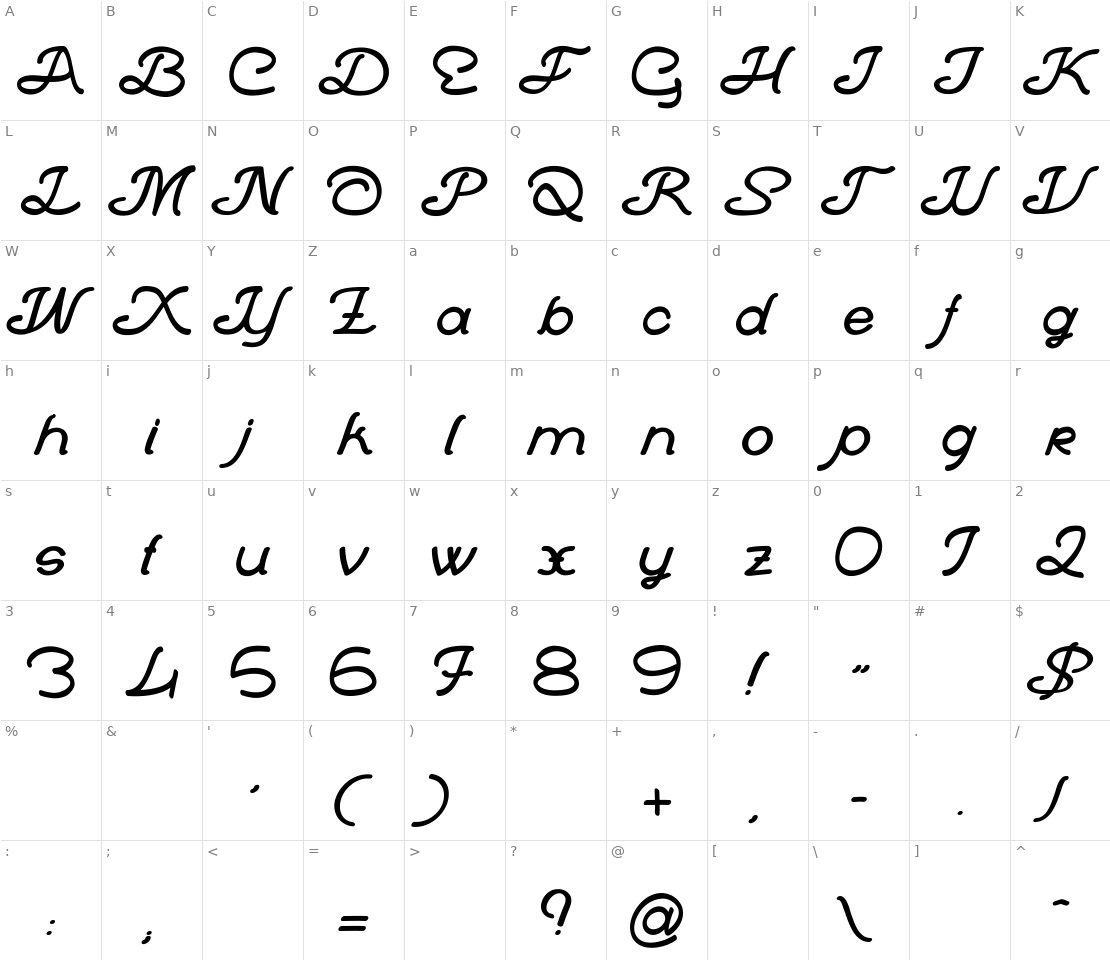
La Bande En Baskets
La Bande En Baskets is a bold, rounded handwritten face from Qkila with connected letterforms that bounce along with a loose, playful rhythm. The strokes feel thick and friendly, like someone lettering a sign with a chunky marker and not worrying too much about keeping things neat. It's built for headlines, posters, and casual branding where you want something that feels warm, approachable, and genuinely fun.